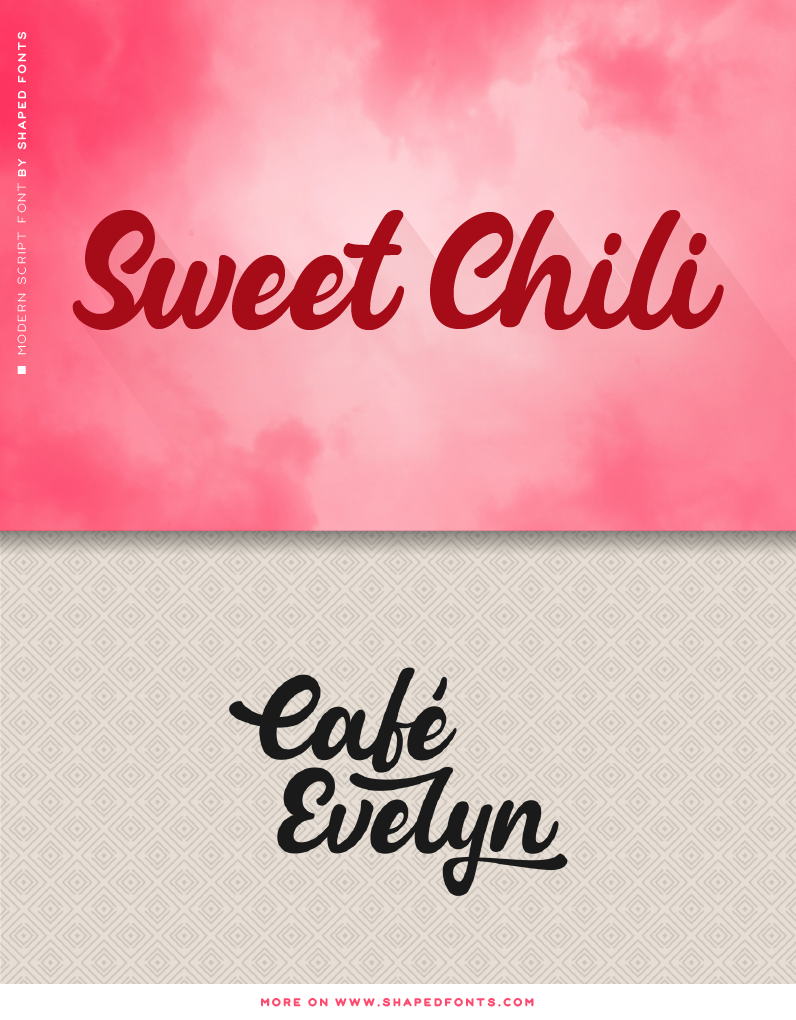
Preview and download Sweet Chili Font. Created by Shaped Fonts in Script Brush styles with Free for personal use license.
*** Visit www.shapedfonts.com/sweet-chili to buy the full version (included with a license) *** which also has a wide multilingual support, symbols and numbers. Spice up your font gallery with our newest script font! Sweet Chili has a modern, clean look and a wide range of features to complete your next design project. PLEASE NOTE: This font is free for personal use only. If you want to use it commercially, please buy a license on our website: www.shapedfonts.com/sweet-chili |